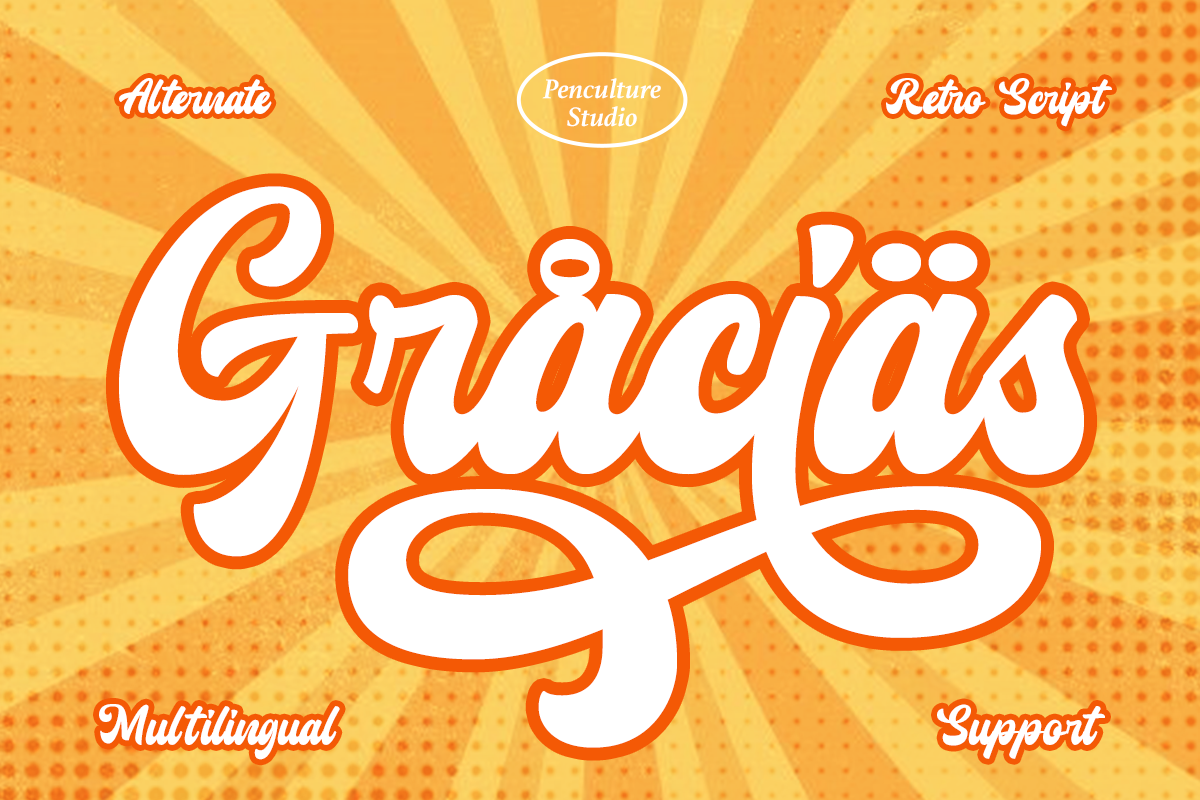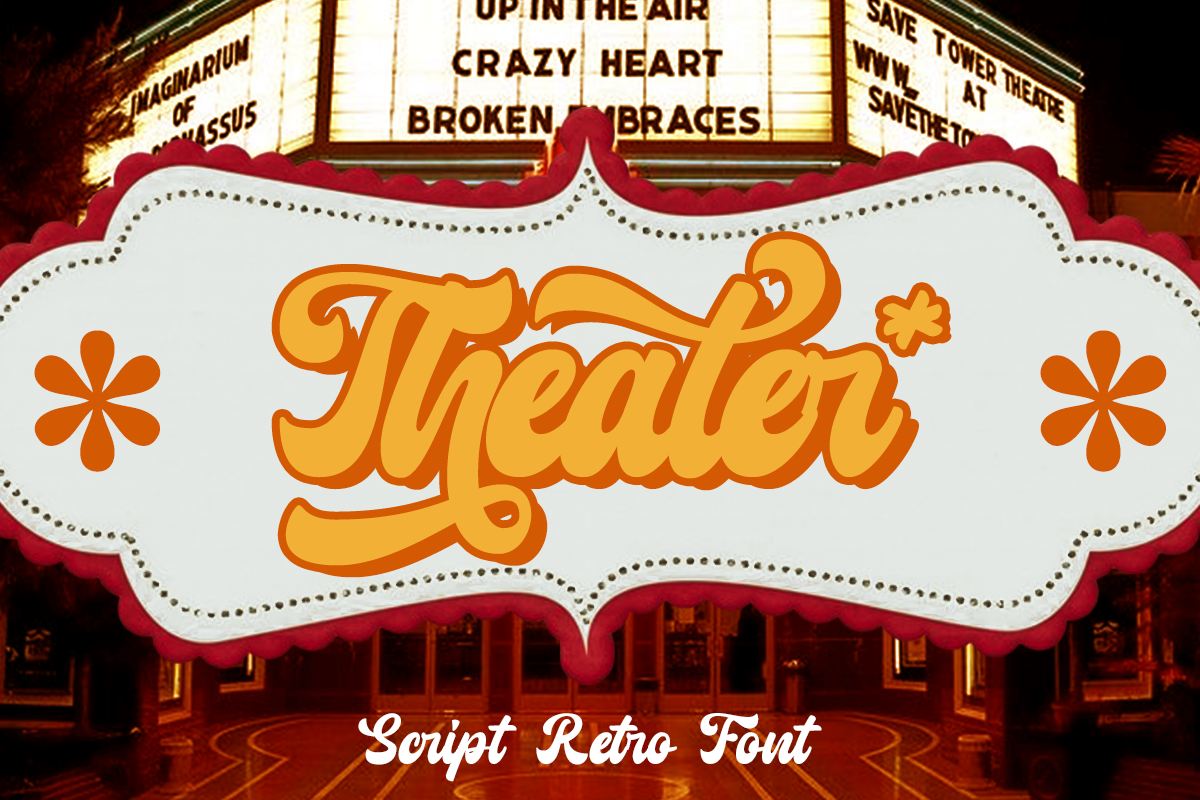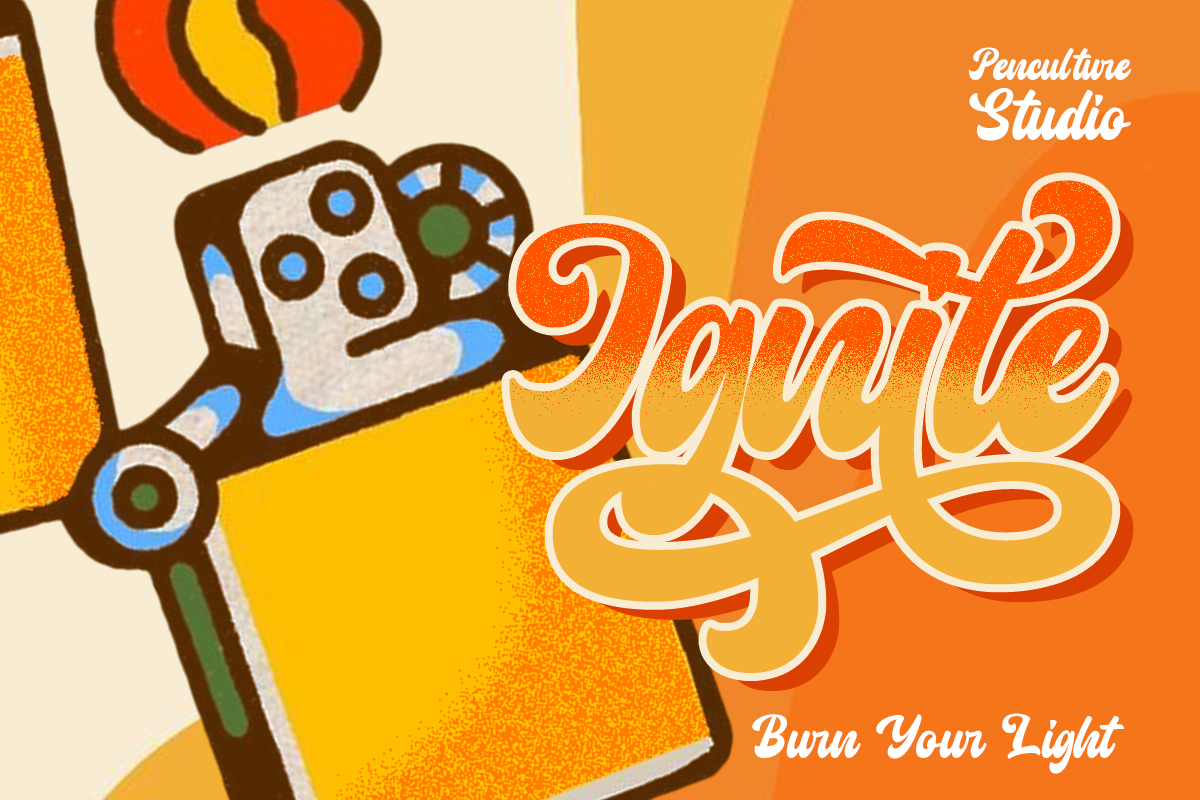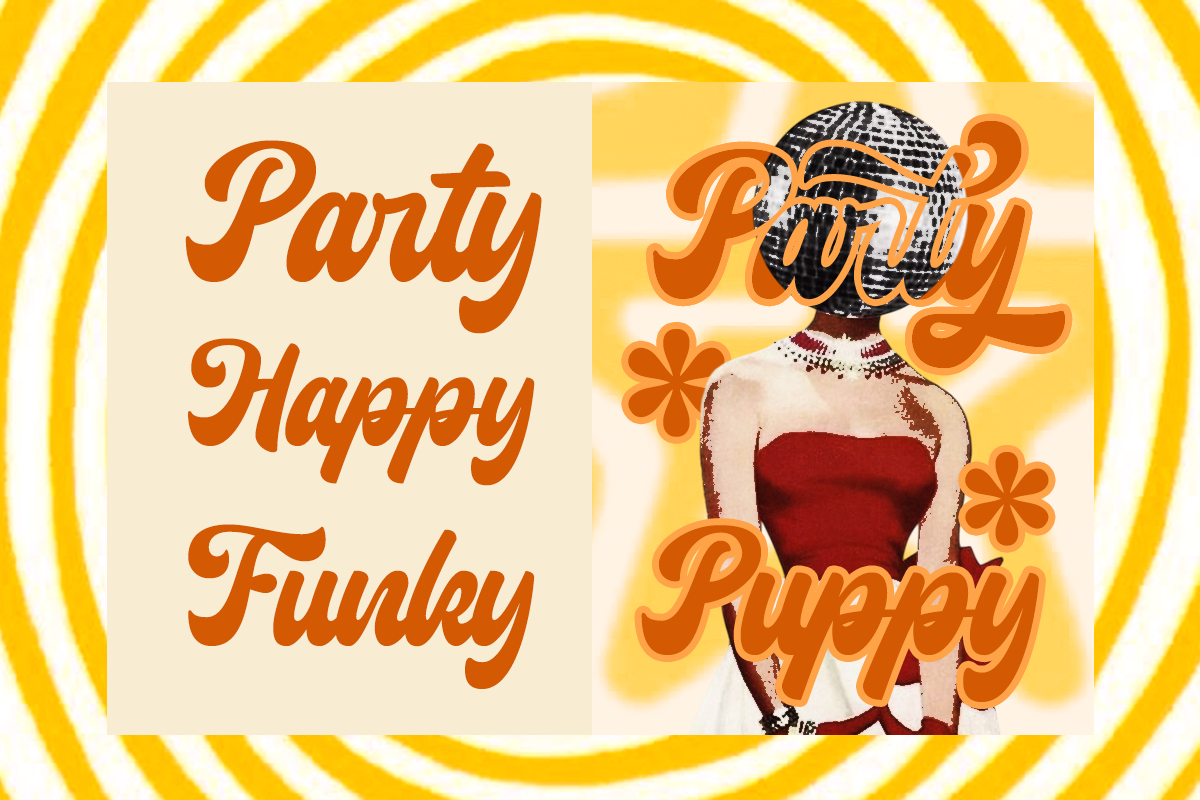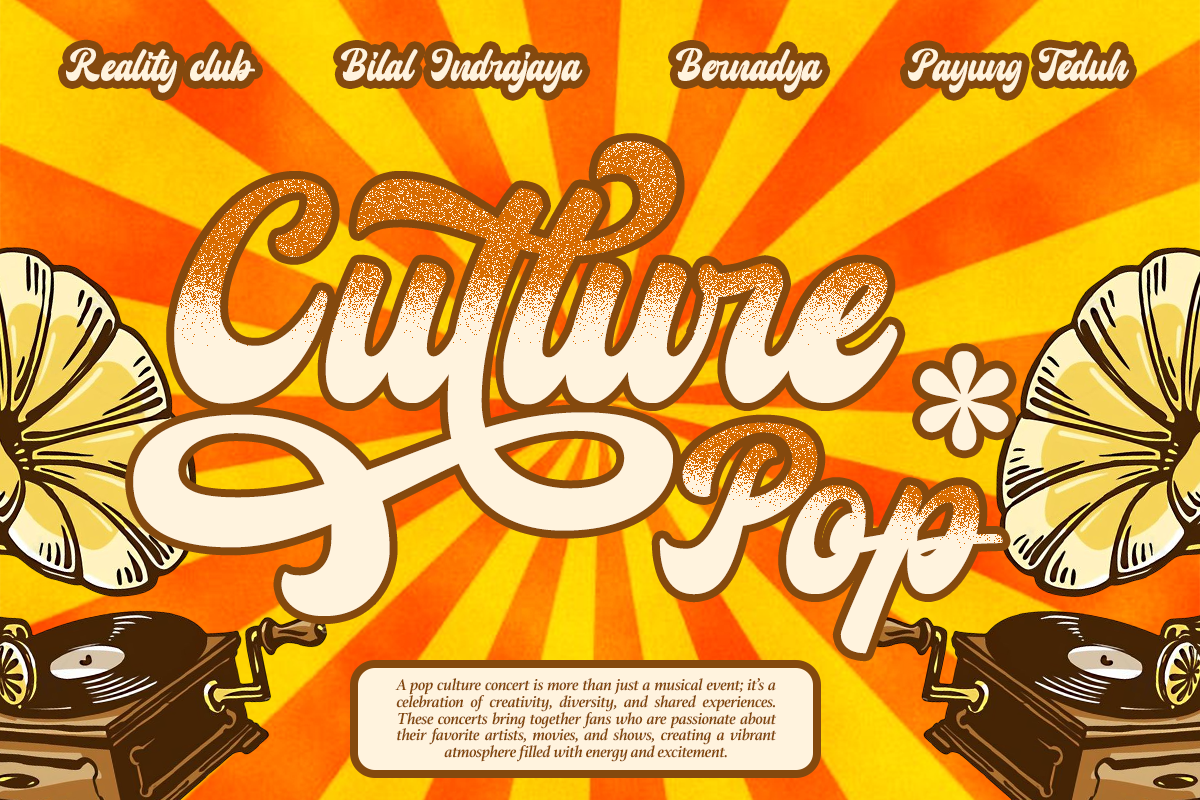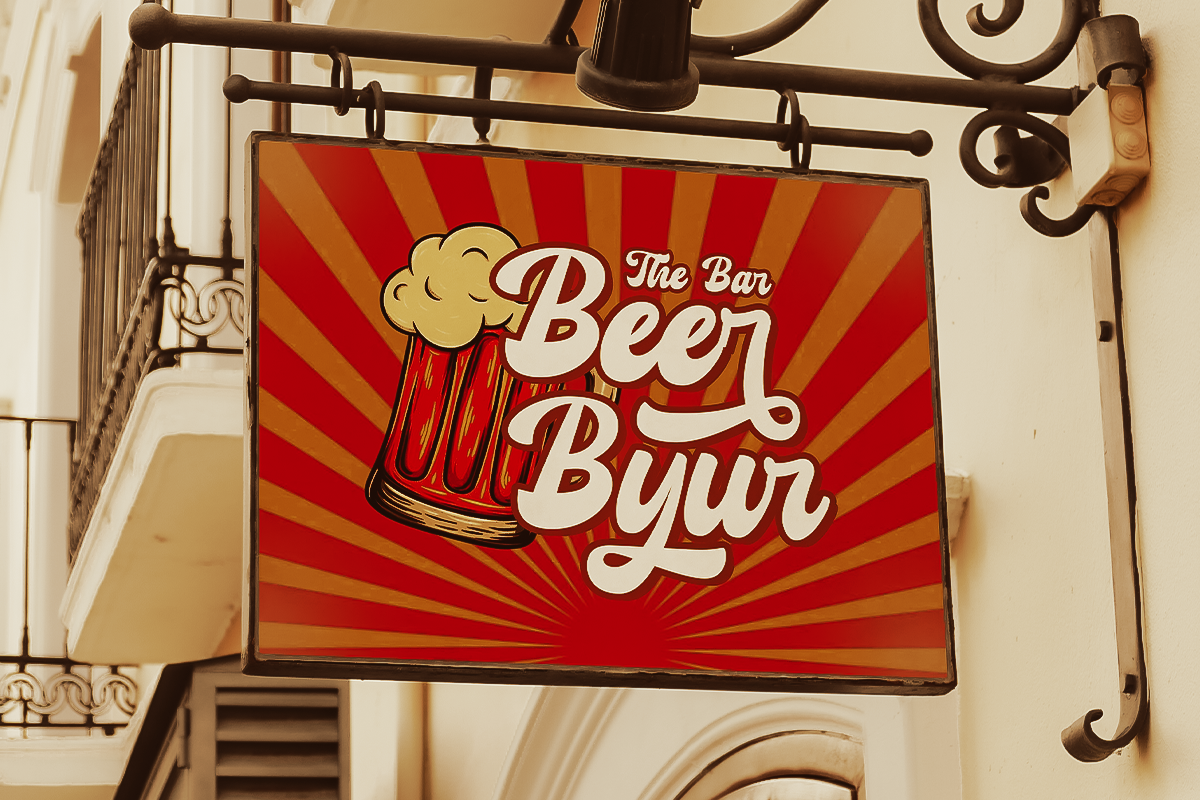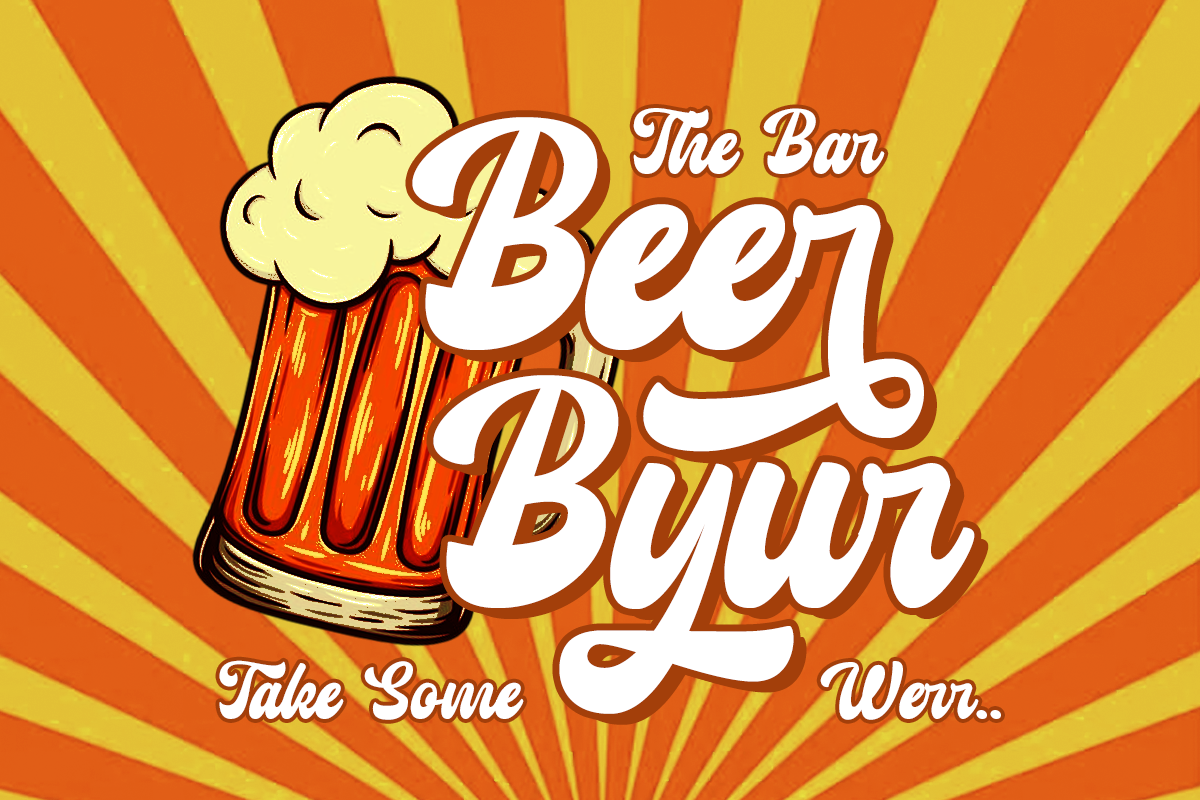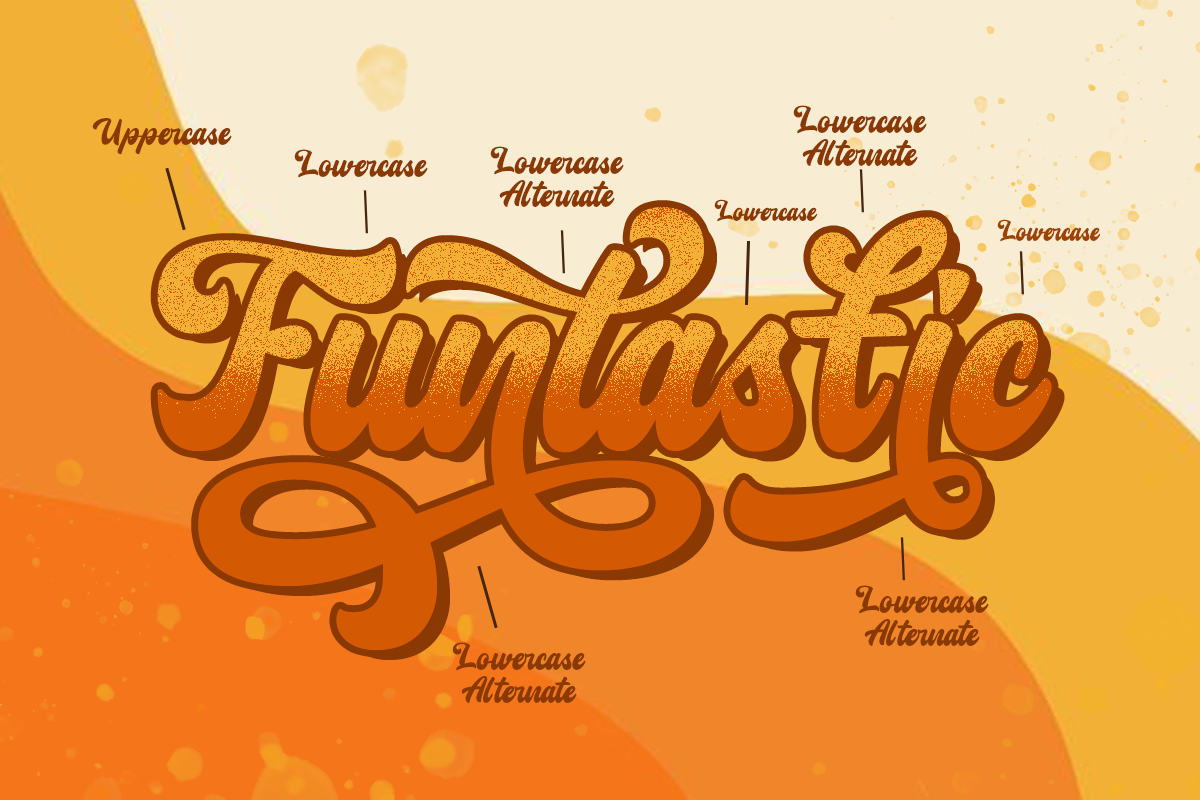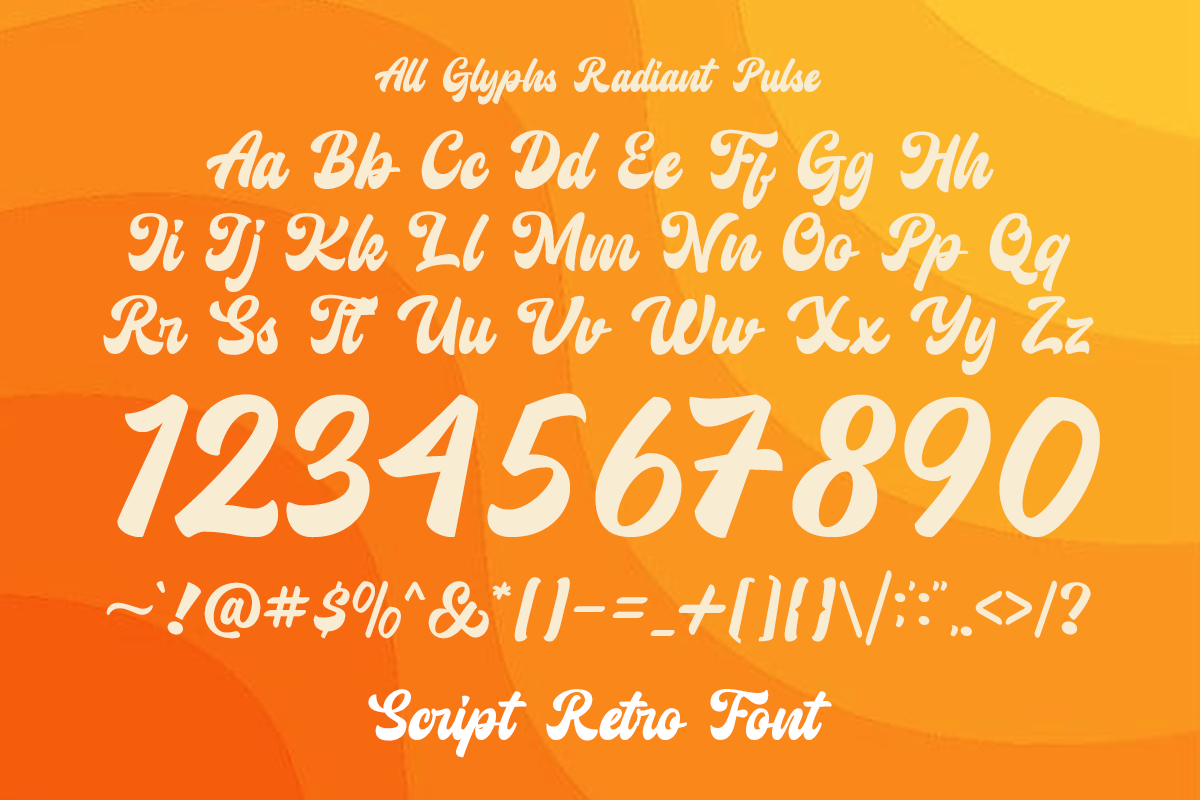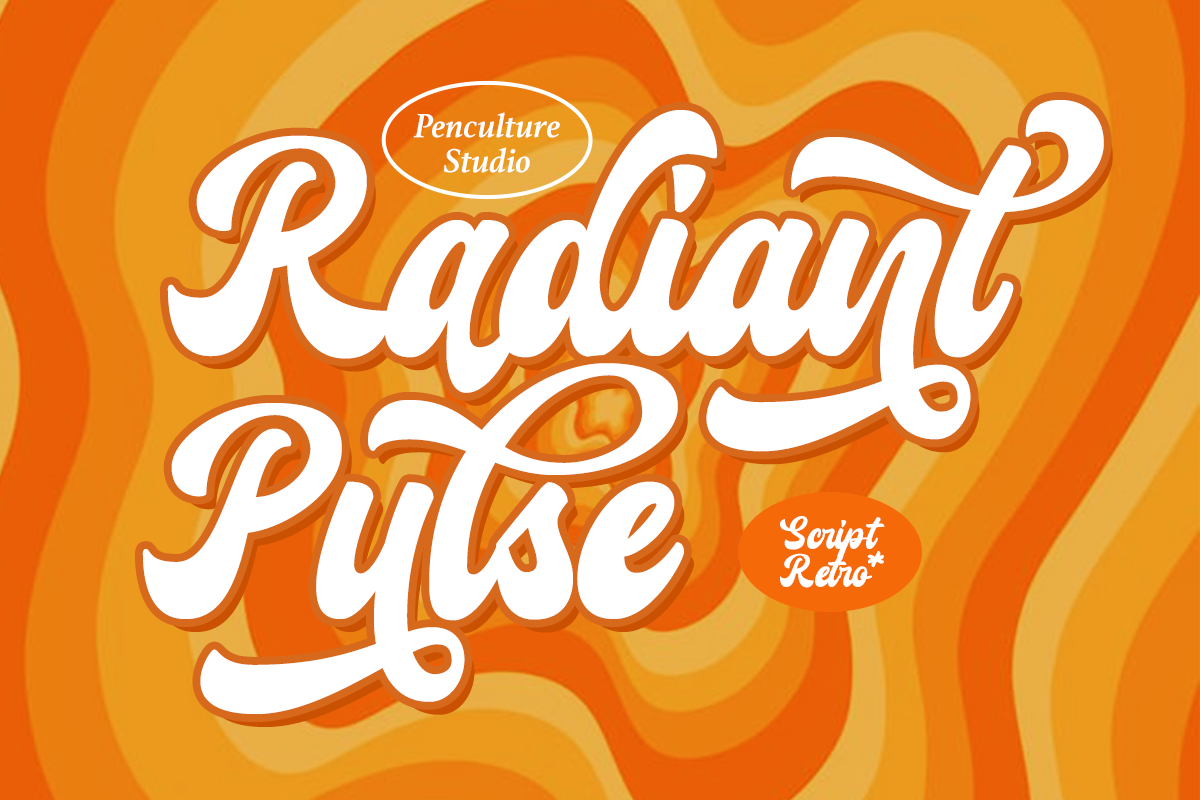
Radiant Pulse Font
Radiant Pulse is a vibrant retro bold script font that commands attention and radiates charm. With its stunning stylistic alternates and meticulously crafted ligatures, this font offers endless possibilities for creating unique, dynamic designs.
Perfect for logos, posters, branding, packaging, and more, Radiant Pulse combines bold, nostalgic energy with a modern edge, making it an excellent choice for standout typography.